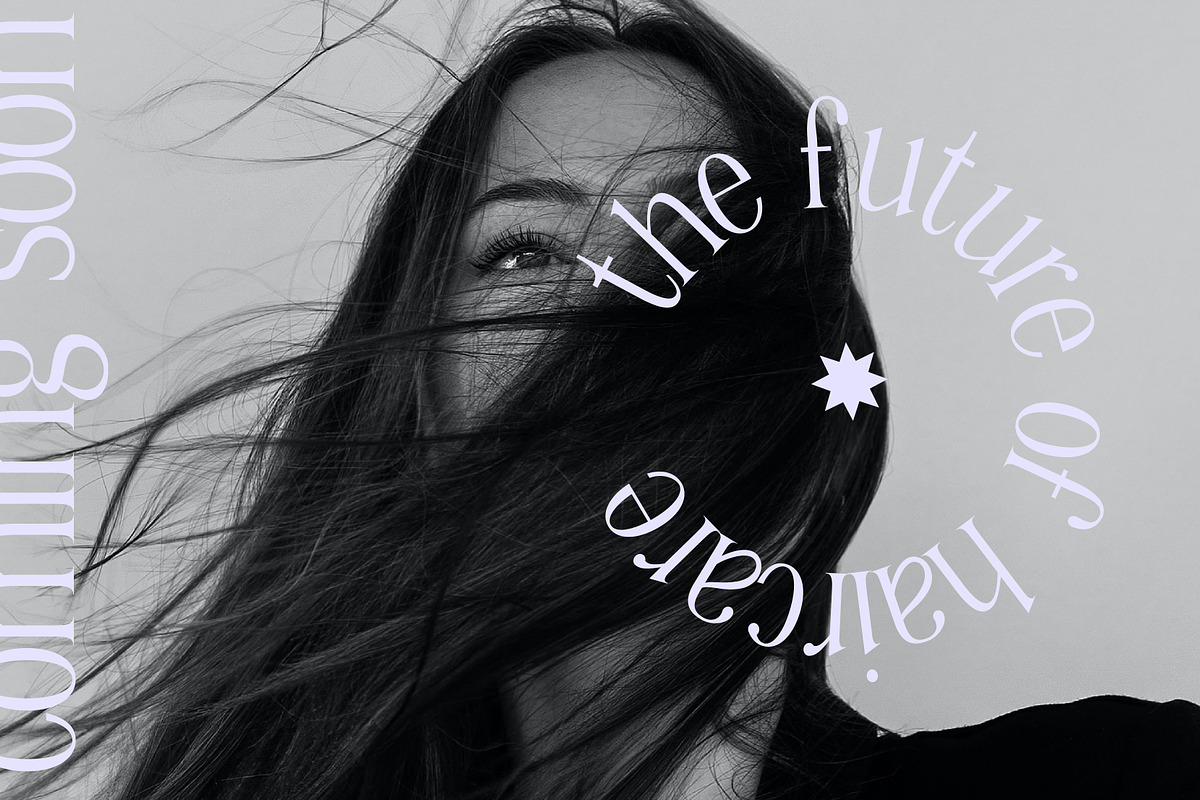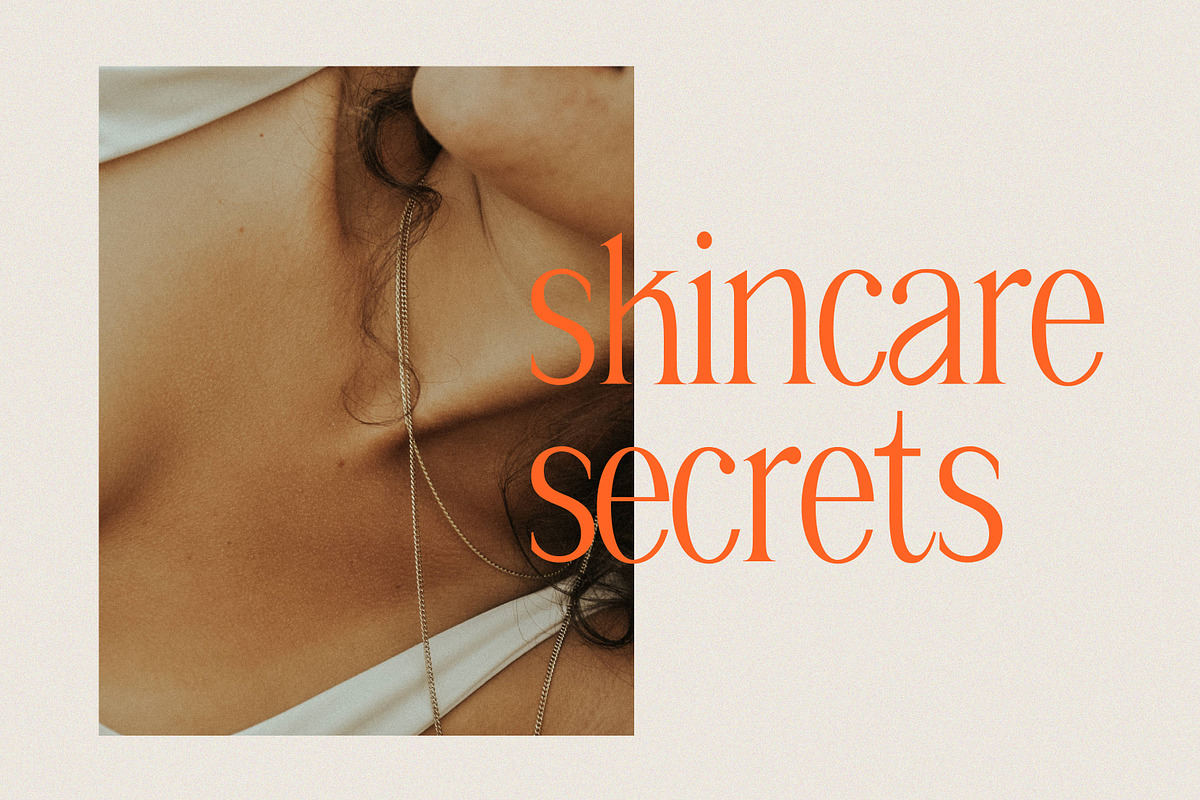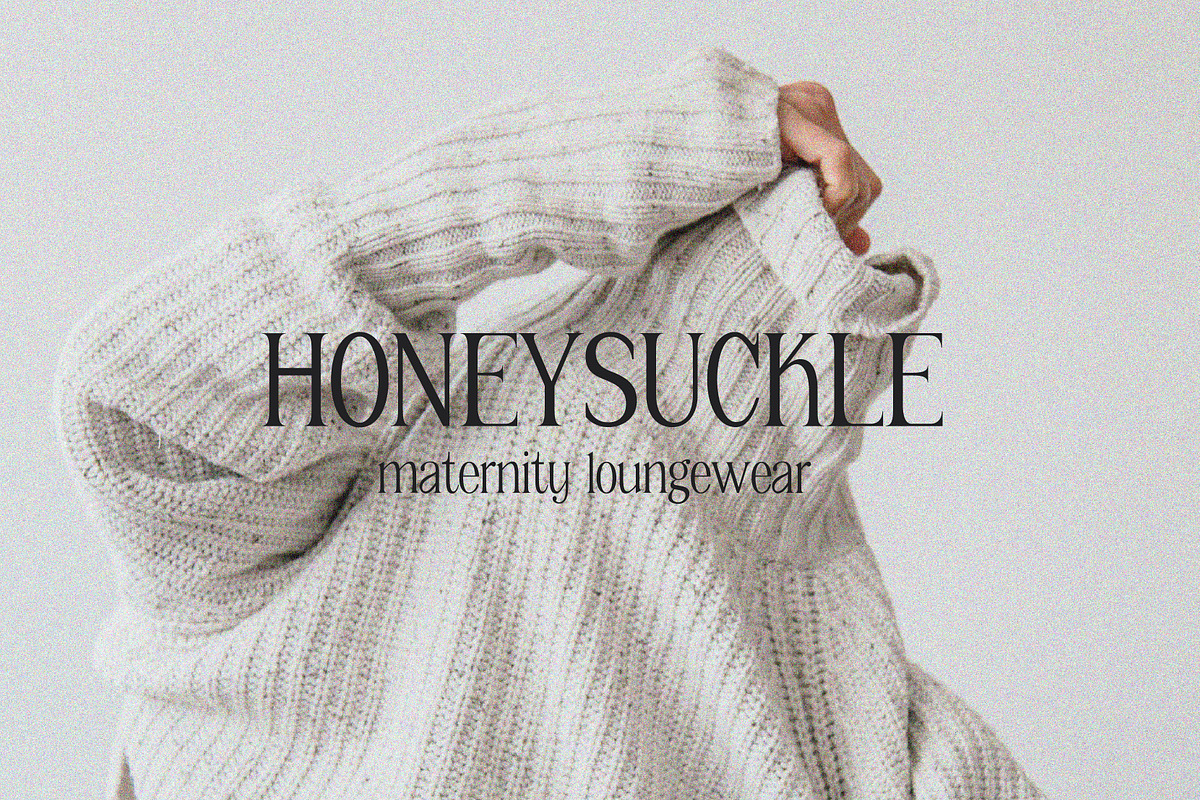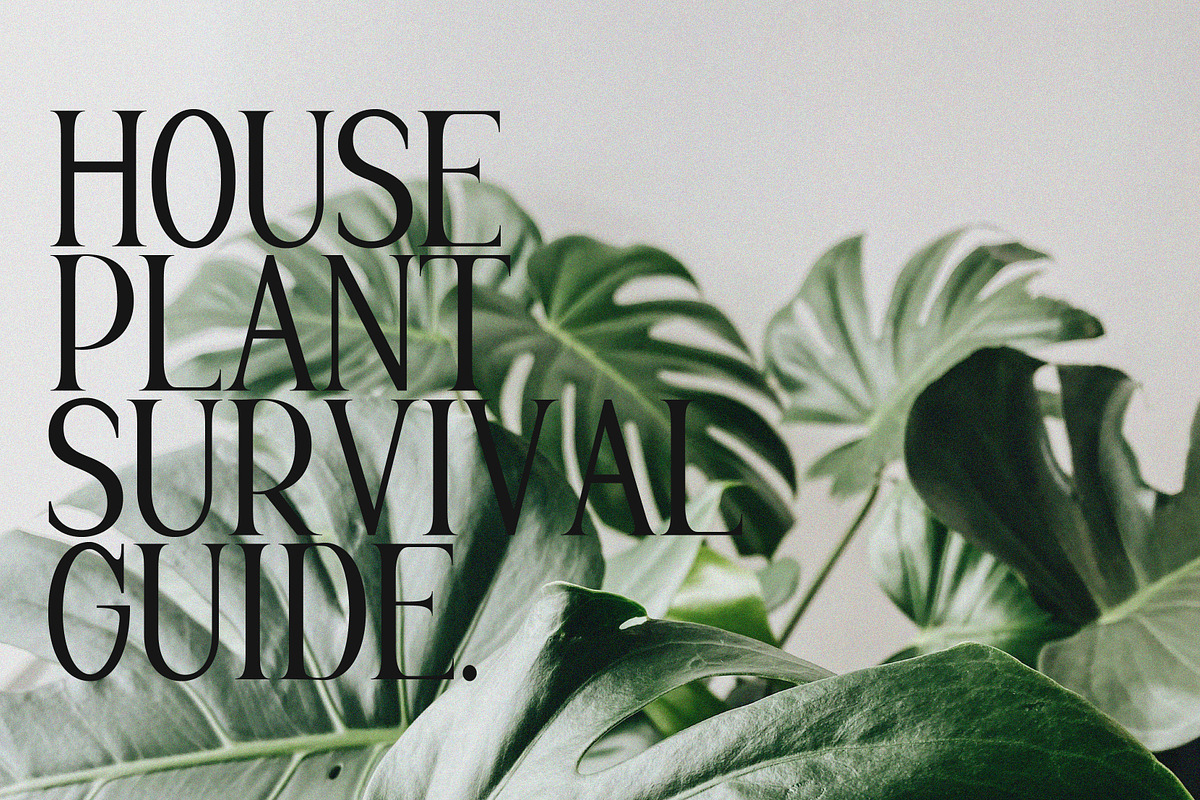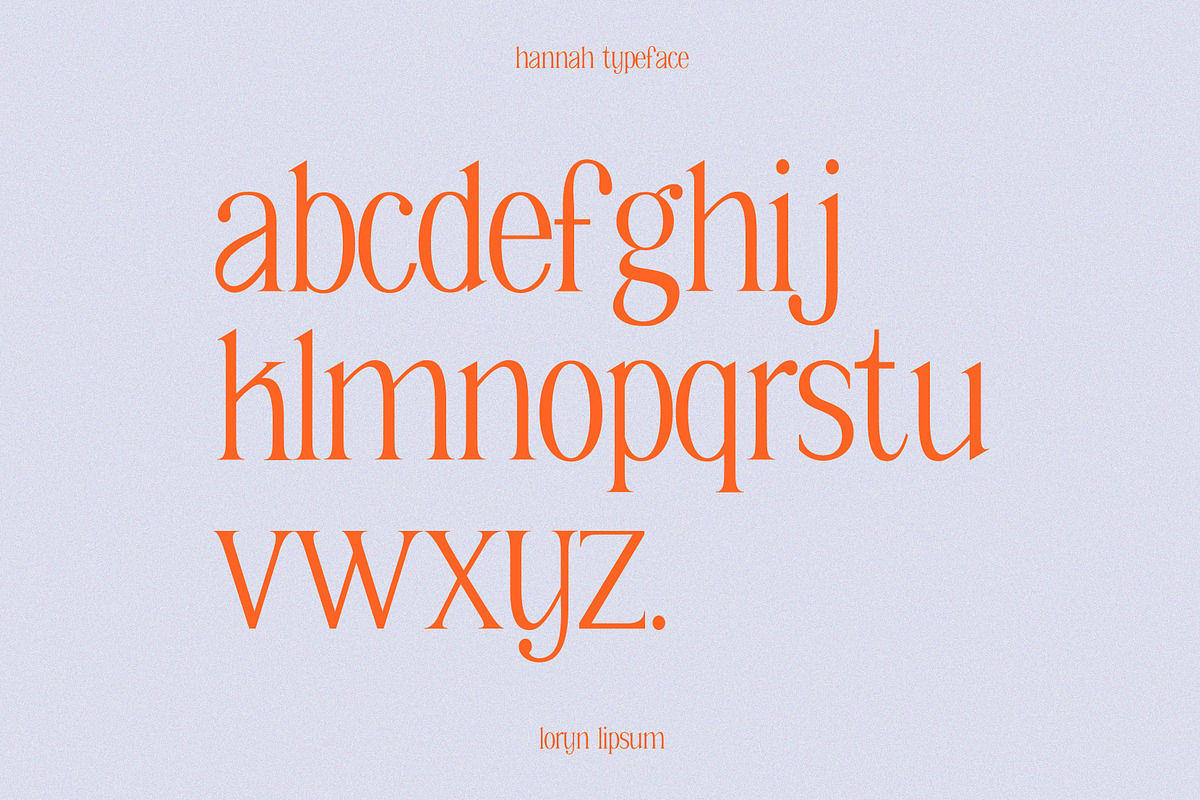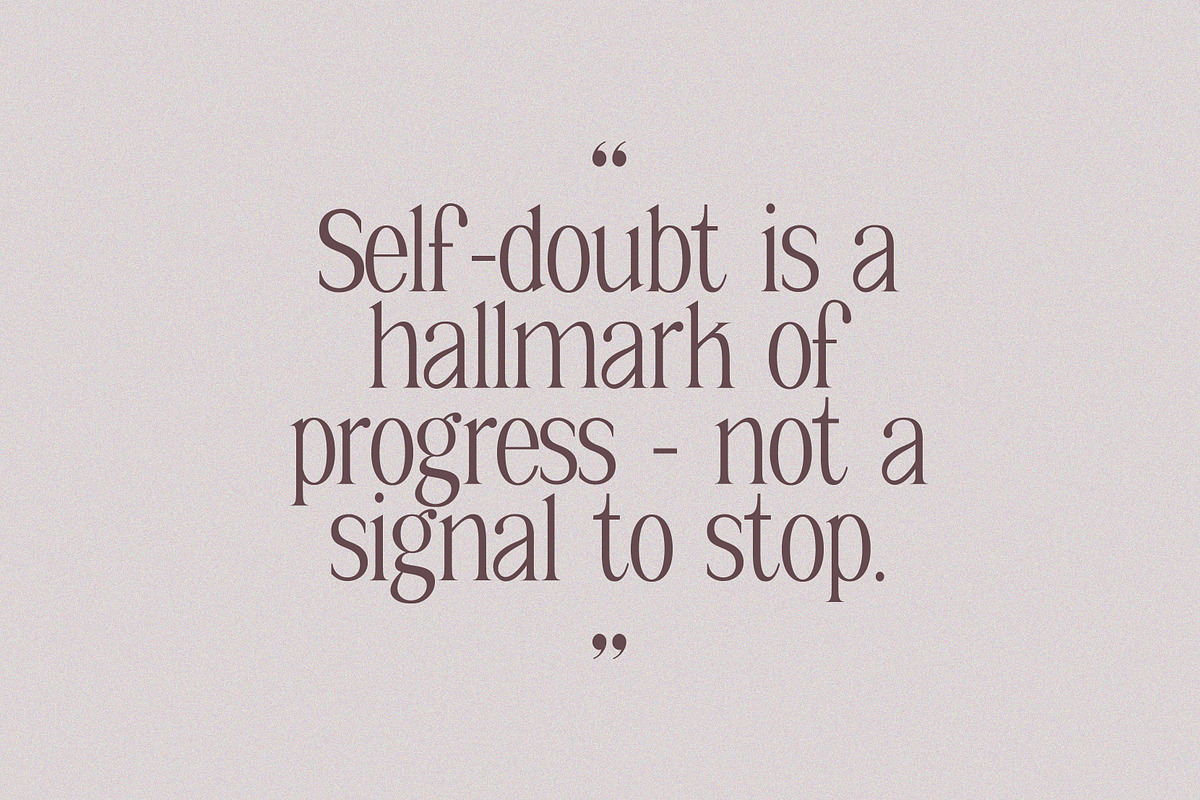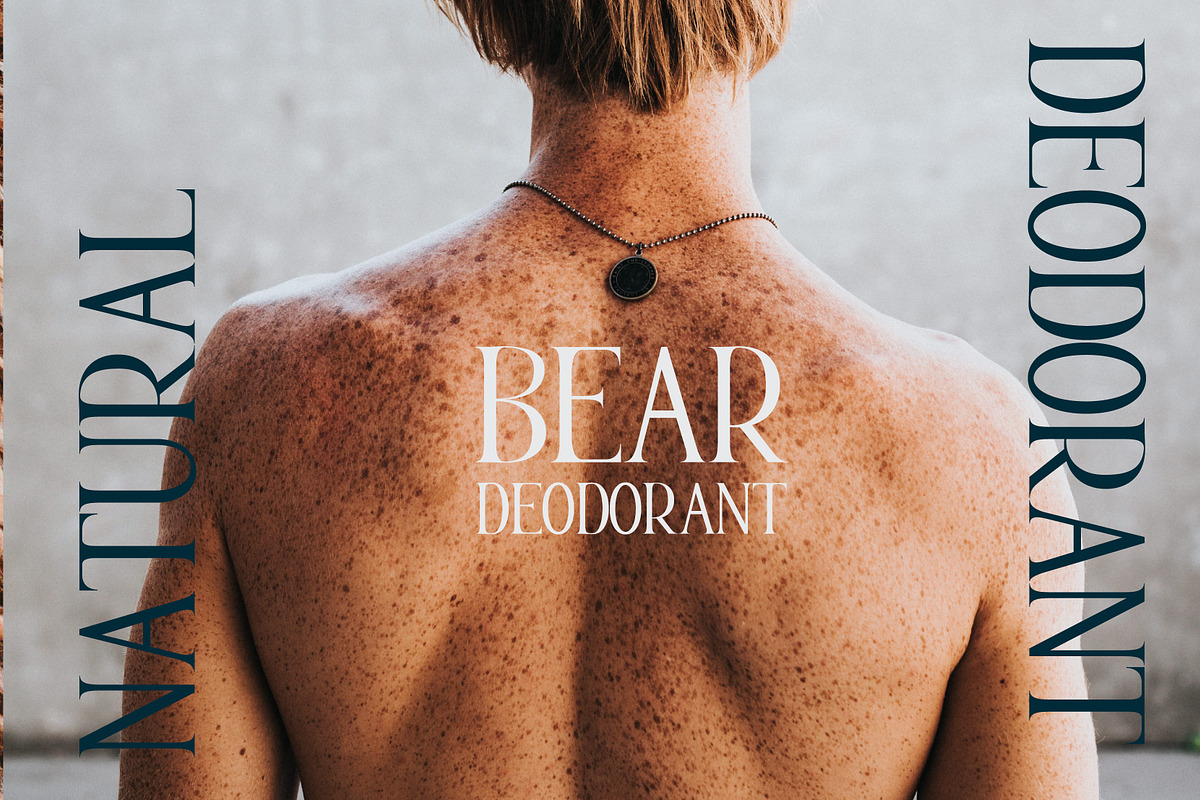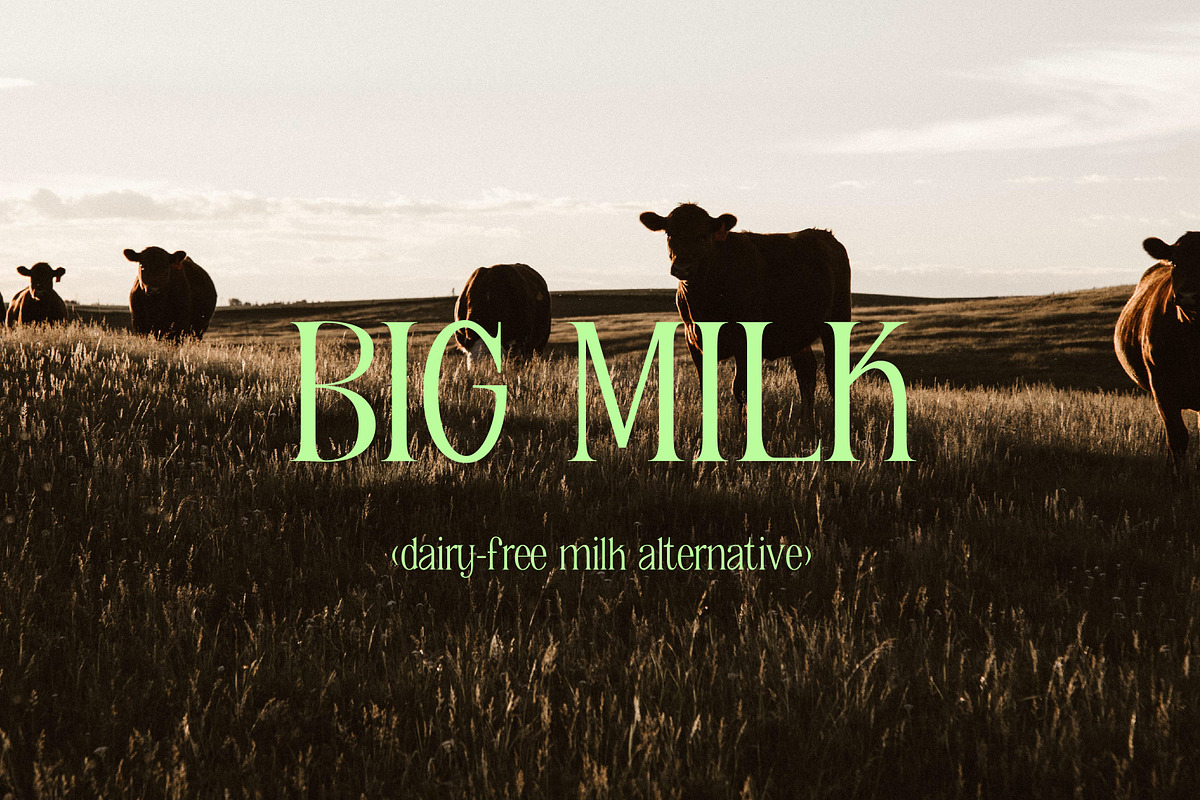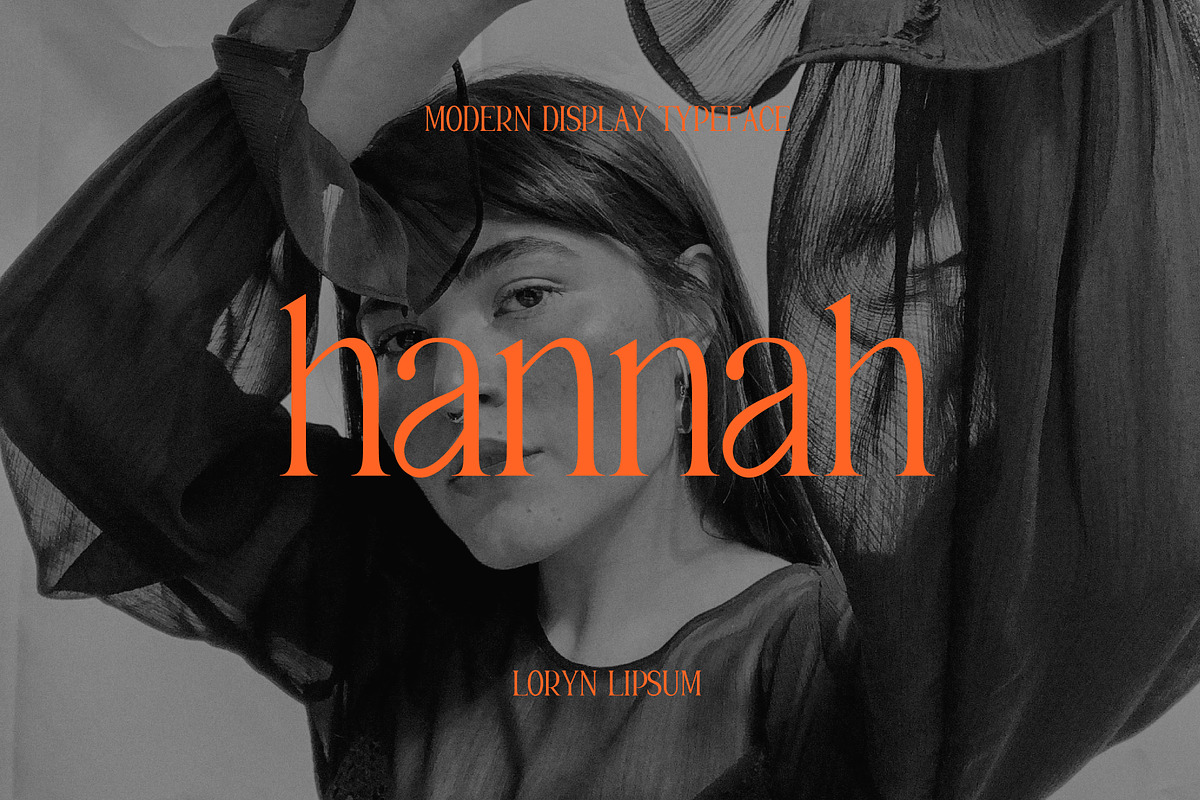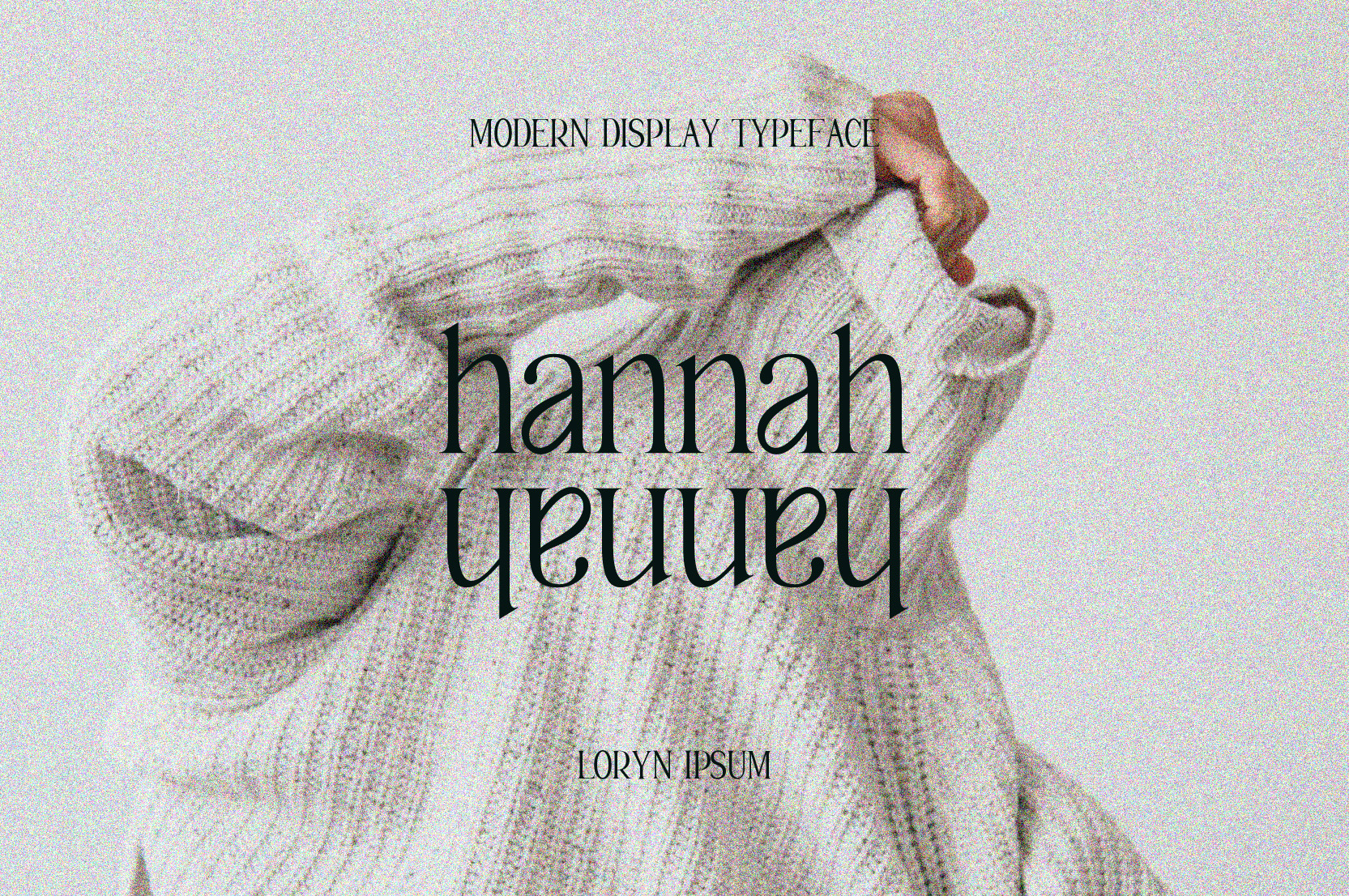
hannah | modern display serif font
This font has been inspired by my beautiful, talented and deeply kind friend Hannah. I've tried to capture as much of her essence in this font as possible. Hannah is incredibly stylish and always very put together, but never in an unapproachable way. She's always kind, empathetic, compassionate and absolutely hilarious. She always makes space for you to be yourself around her. I hope you love this stylish yet approachable font as much as I have loved making it.
⋒ perfect for ⋒
- type logos
- magazines
- packaging
- branding
- high-end brands